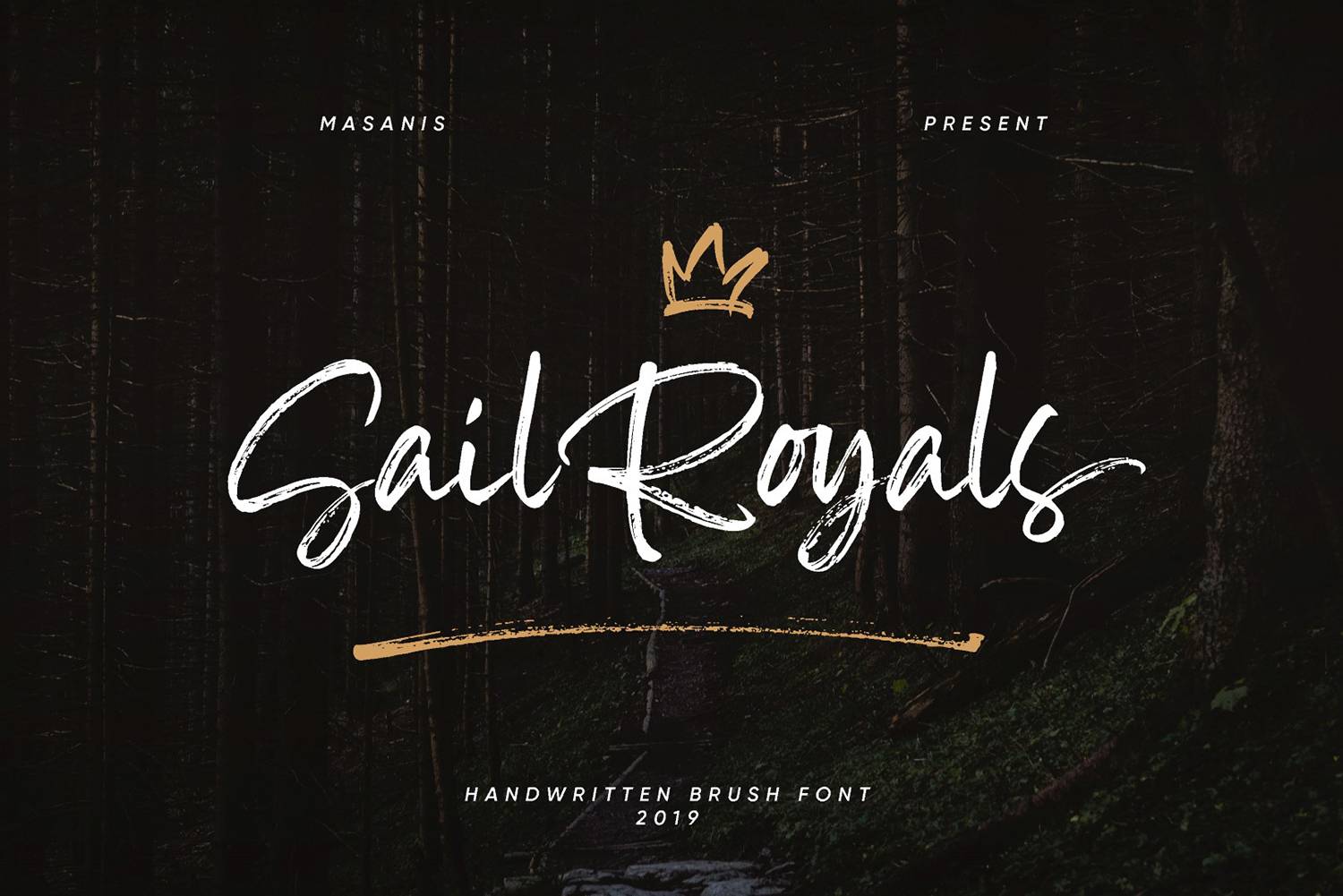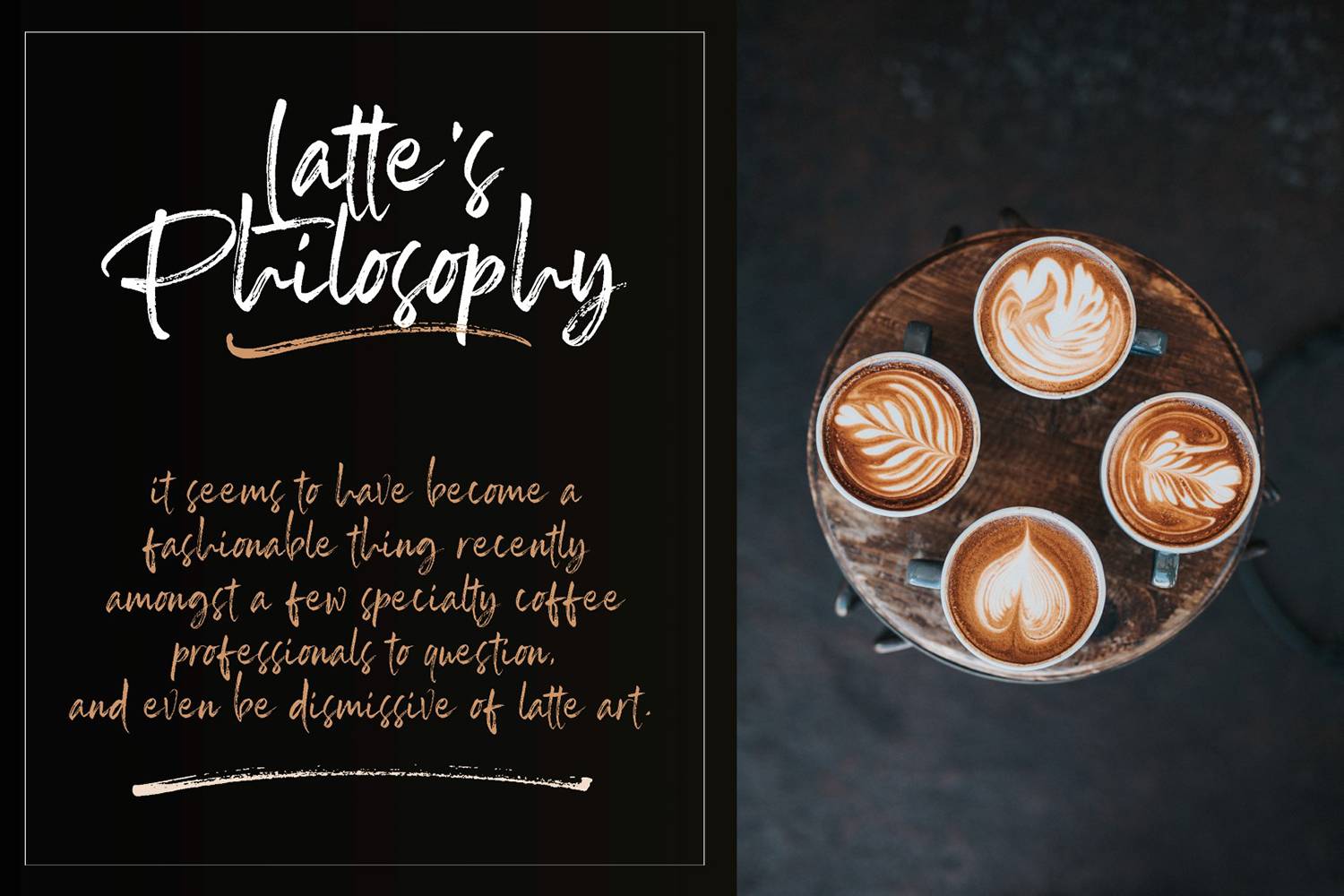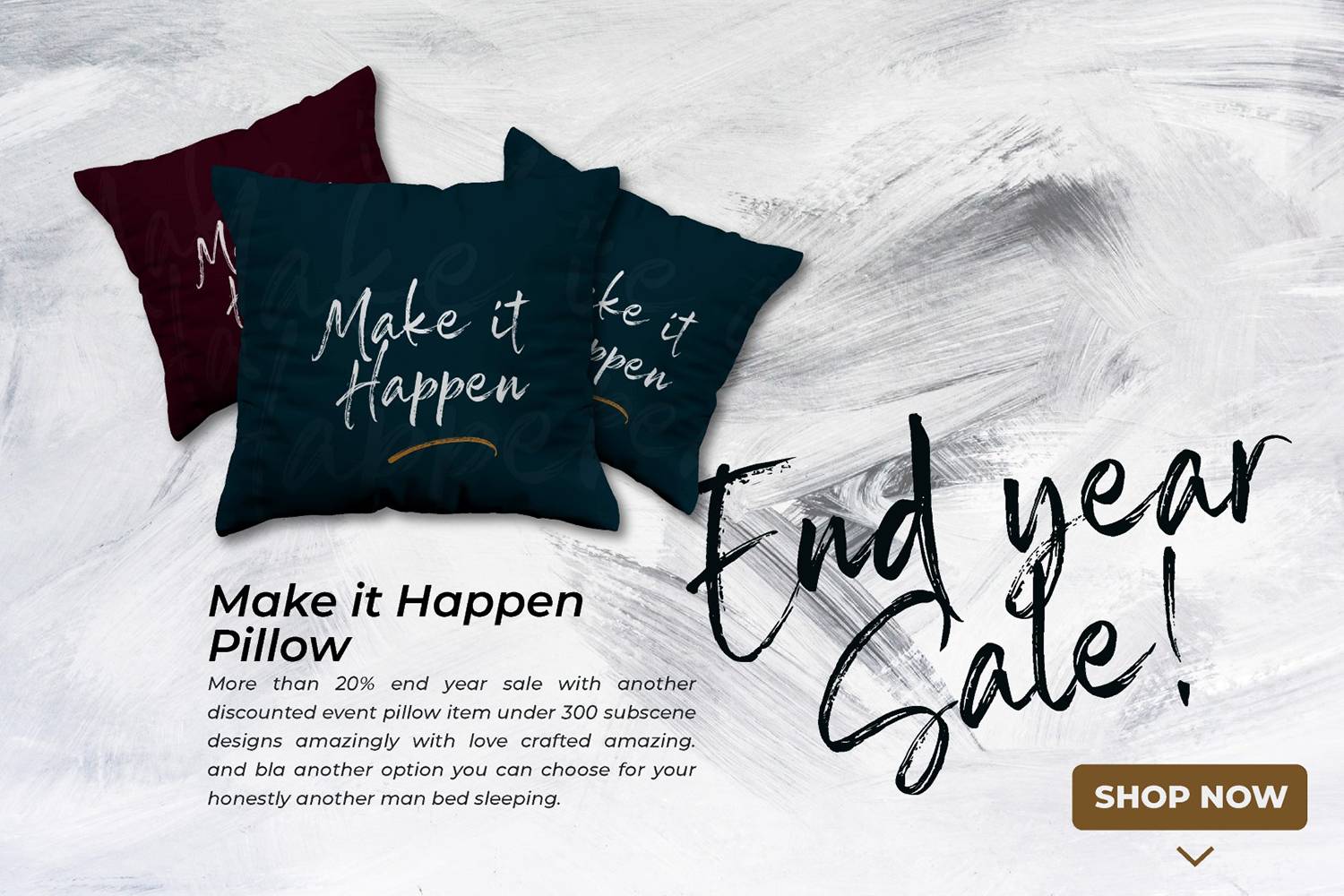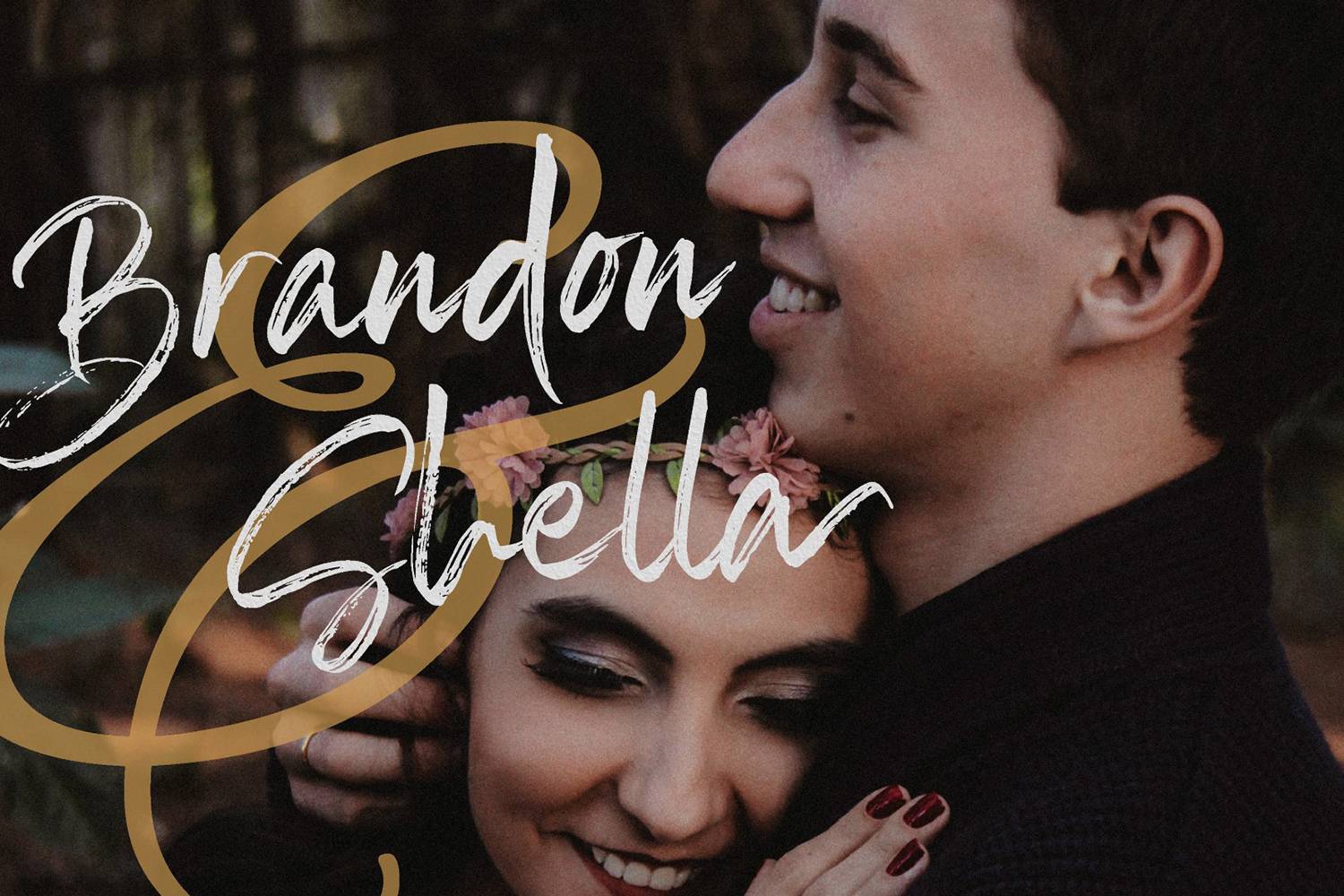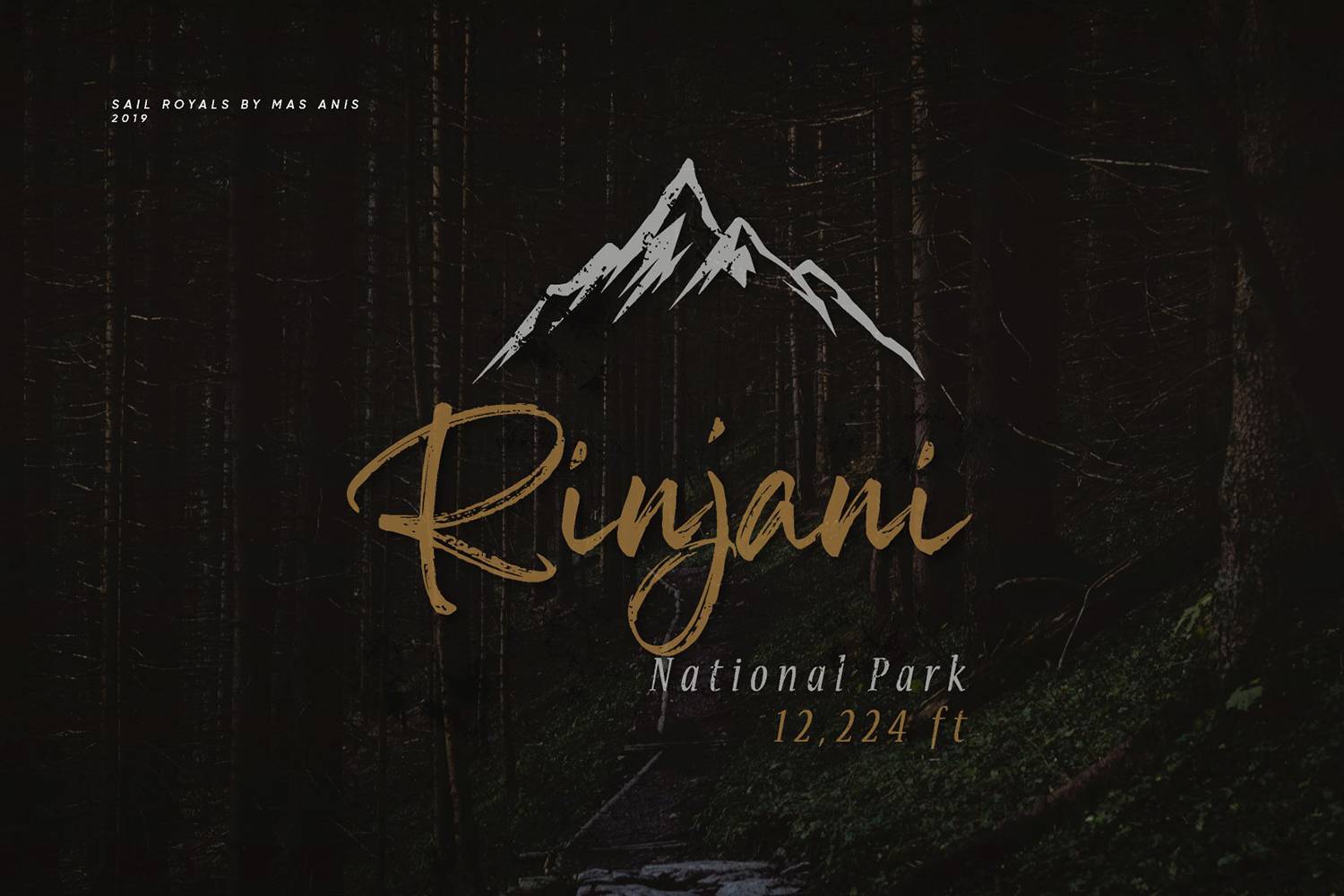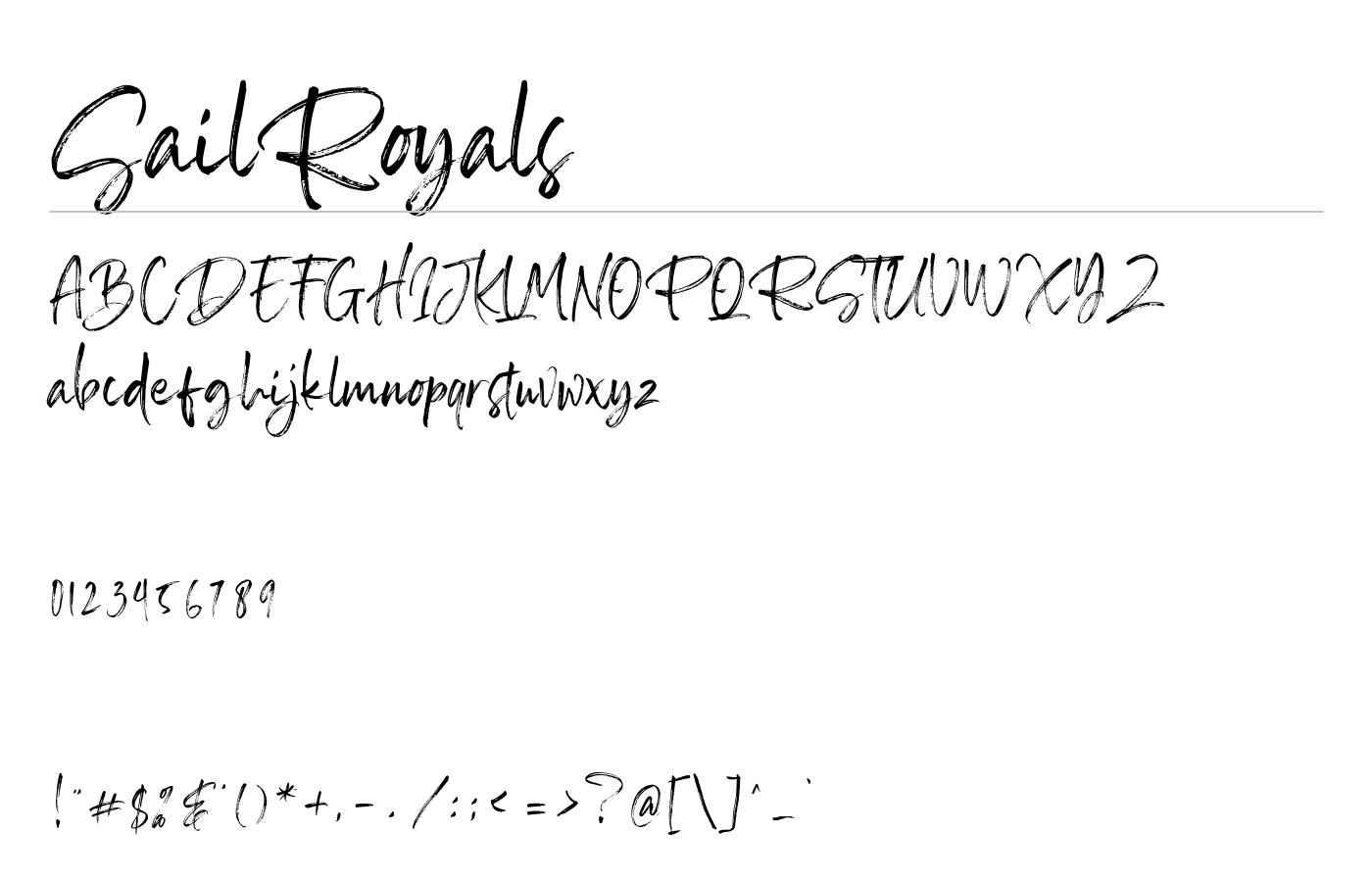
Sail Royals is a lively, brush-script font that captures a hand-painted, casual elegance with its rough textured strokes and natural, flowing letterforms. Its moderately tall x-height and varied stroke width give it a dynamic, artistic feel that works wonderfully for creative branding, invitations, and expressive headlines. This font adds a personal, energetic touch to any design, making it ideal for fashion, lifestyle, or artistic projects that want to convey warmth and individuality.
Sail Royals Font
About Sail Royals Font
| Font family | Sail Royals Font |